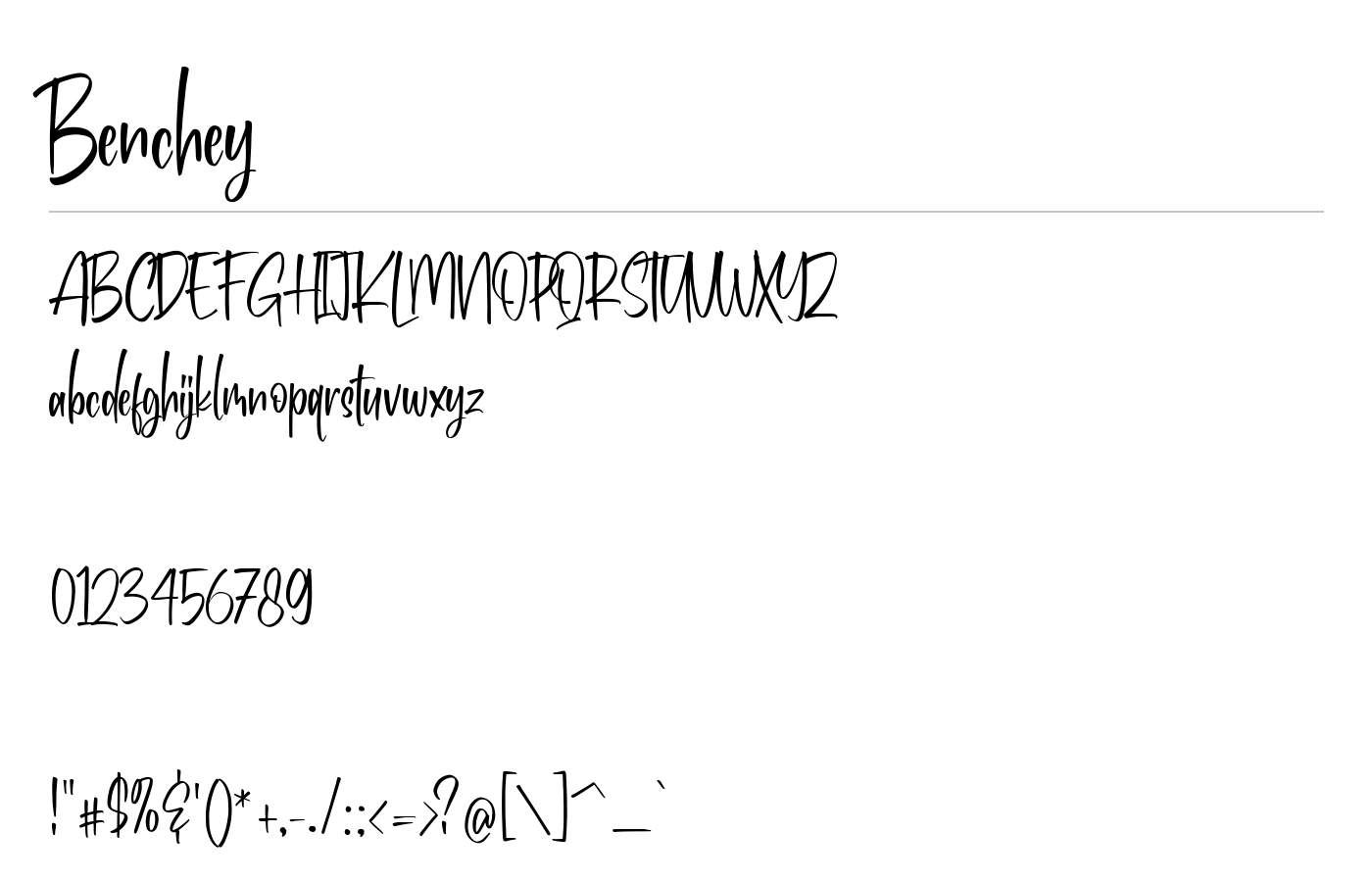
Benchey is a playful, handwritten script font with a light weight and tall, narrow letterforms that give it an energetic and informal feel. Its thin, slightly irregular strokes and casual style make it perfect for creative projects, invitations, or branding that seeks a personal touch. This font works well in headlines or logos where a friendly, approachable vibe is desired.
Benchey Font
About Benchey Font